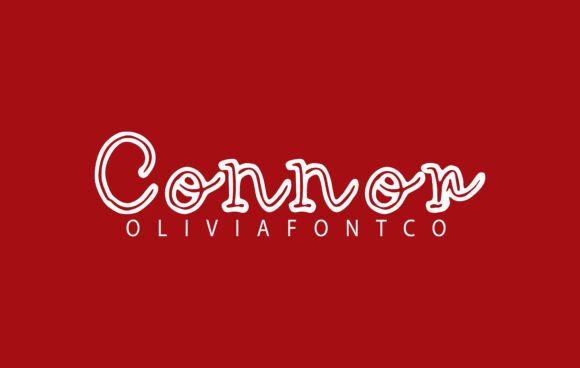
Introducing Connor Font: The Ultimate Handwritten Font with a Romantic Touch
In the world of typography, fonts play a crucial role in conveying the tone and personality of a brand or creative project. A well-designed font can elevate your design, making it more engaging, readable, and memorable. If you’re looking for a font that exudes romance, elegance, and sophistication, look no further than Connor Font. In this article, we’ll explore the features, benefits, and uses of Connor Font, and why it’s an excellent choice for your next creative project.
What is Connor Font?
Connor Font is an authentic handwritten font that boasts a romantic touch, making it perfect for designs that require a personal and emotional connection. Expertly designed to be a true favorite among designers, Connor Font has the potential to take your creative ideas to the highest level. Its unique and elegant design makes it an excellent choice for a wide range of applications, from magazine headlines to wedding invitations.
Key Features of Connor Font
So, what makes Connor Font stand out from the rest? Here are some of its key features:
- Legibility: Connor Font is designed to be highly legible, making it perfect for both title and body text.
- Romantic Touch: The font’s handwritten design gives it a romantic and personal feel, perfect for designs that require an emotional connection.
- Elegance: Connor Font exudes elegance and sophistication, making it suitable for high-end designs and luxury brands.
- Versatility: The font is versatile and can be used for a wide range of applications, including magazine headlines, social media, branding, wedding invitations, and more.
Uses of Connor Font
Connor Font is an incredibly versatile font that can be used for various design projects. Here are some of the ways you can use Connor Font:
Magazine Headlines
Connor Font is perfect for magazine headlines, as it adds a touch of elegance and sophistication to your title pages. Its legibility and romantic touch make it an excellent choice for magazine covers, especially for publications focused on lifestyle, fashion, and weddings.
Social Media
In today’s digital age, social media is an essential platform for brands to connect with their audience. Connor Font can be used to create engaging social media posts, adding a personal touch to your brand’s online presence.
Branding
Connor Font is an excellent choice for branding, especially for luxury brands that require a sophisticated and elegant font. The font’s versatility makes it suitable for various branding applications, including logos, business cards, and letterheads.
Wedding Invitations
Connor Font is perfect for wedding invitations, as it adds a romantic touch to your design. The font’s elegance and sophistication make it suitable for formal wedding invitations, while its legibility ensures that the details are clear and easy to read.
Cards and Stationery
Connor Font can also be used for designing cards and stationery, such as greeting cards, thank-you cards, and letterheads. The font’s romantic touch and elegance make it perfect for creating personalized and memorable stationery.
Benefits of Using Connor Font
So, why should you choose Connor Font for your next design project? Here are some of the benefits of using Connor Font:
- Unique Design: Connor Font has a unique and elegant design that sets it apart from other fonts.
- Legibility: The font’s high legibility ensures that your text is clear and easy to read.
- Versatility: Connor Font can be used for a wide range of applications, making it a valuable addition to your font library.
- Emotional Connection: The font’s romantic touch helps create an emotional connection with your audience, making it perfect for designs that require a personal touch.
In conclusion, Connor Font is an exceptional handwritten font that boasts a romantic touch, elegance, and sophistication. Its legibility, versatility, and unique design make it an excellent choice for various design projects, from magazine headlines to wedding invitations. If you’re looking for a font that can elevate your design and create an emotional connection with your audience, Connor Font is the perfect choice.